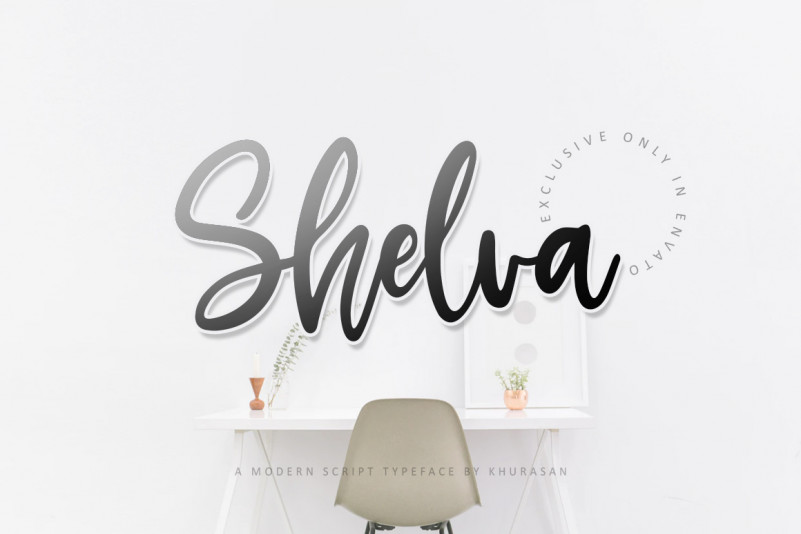
Shelva Font
The Shilva is a fun script font, fresh & modern style. Shilva Script Font suitable for logo, branding, greeting card, poster and any design that you create.